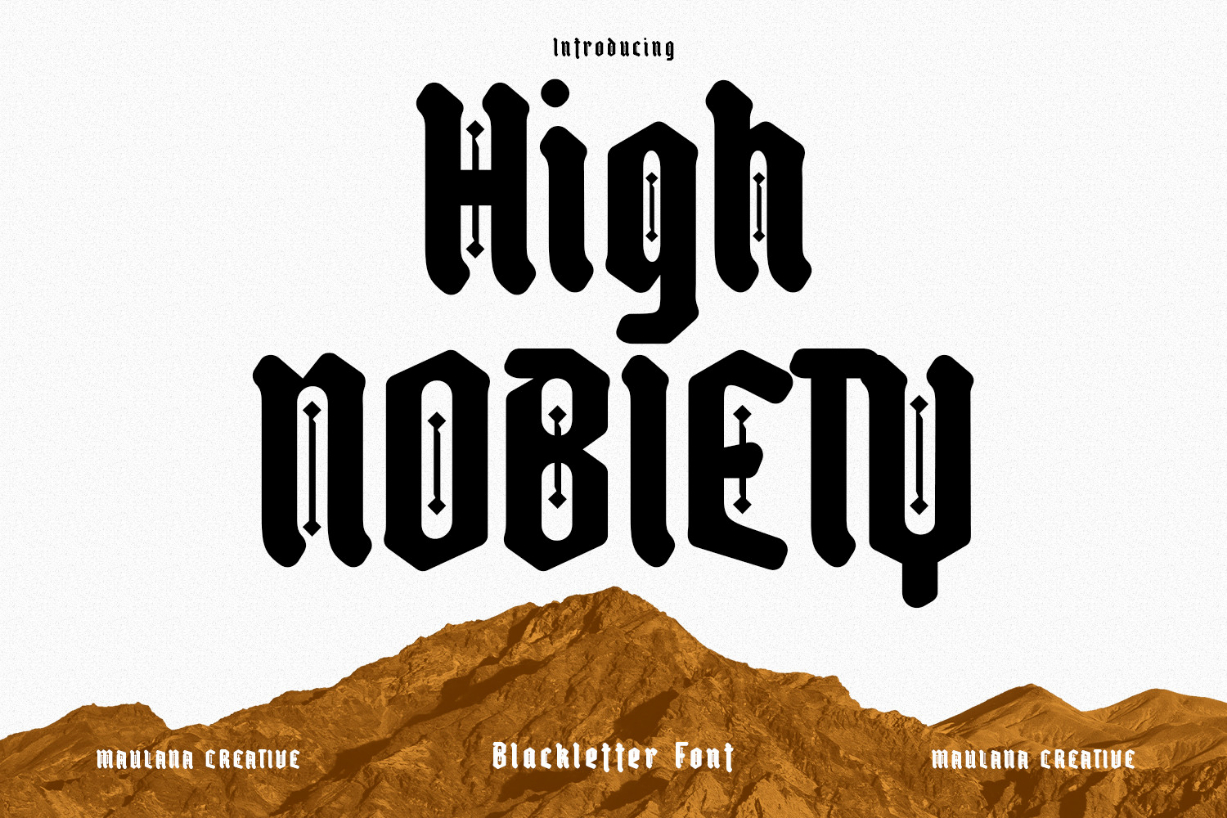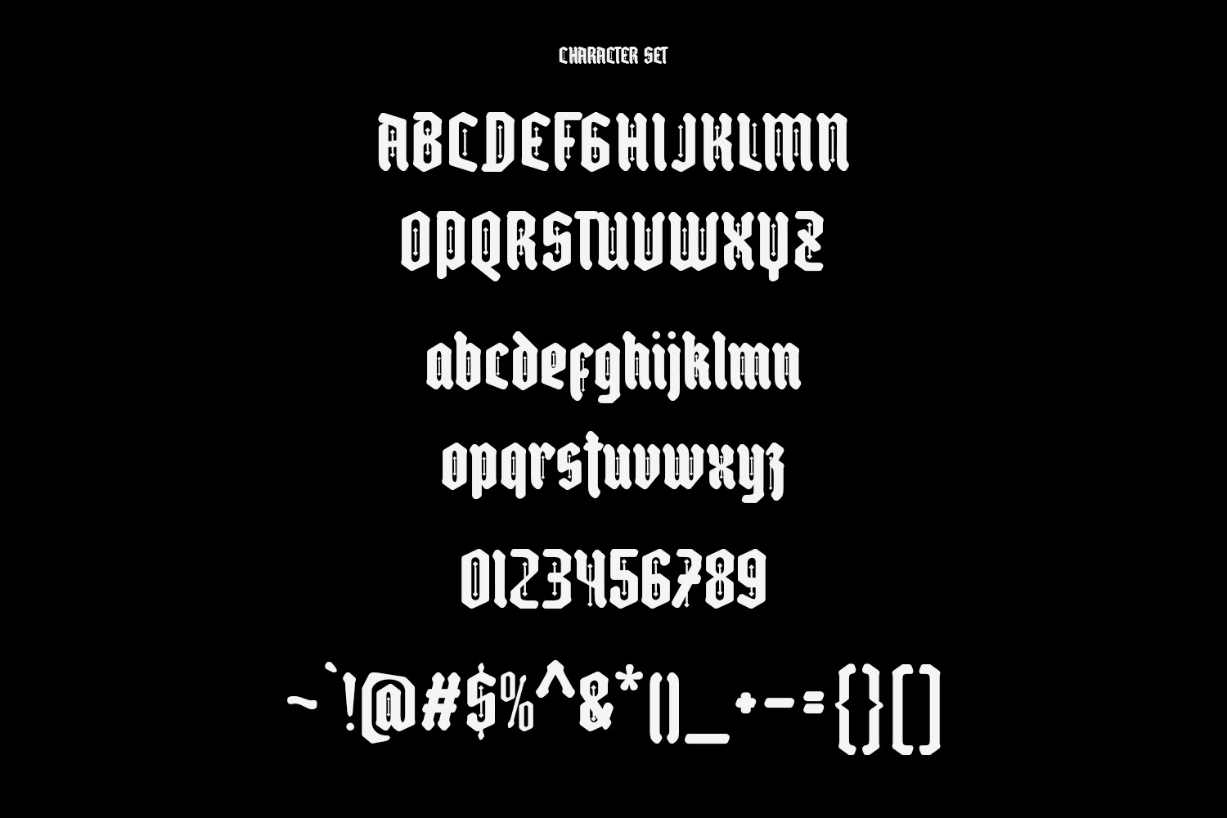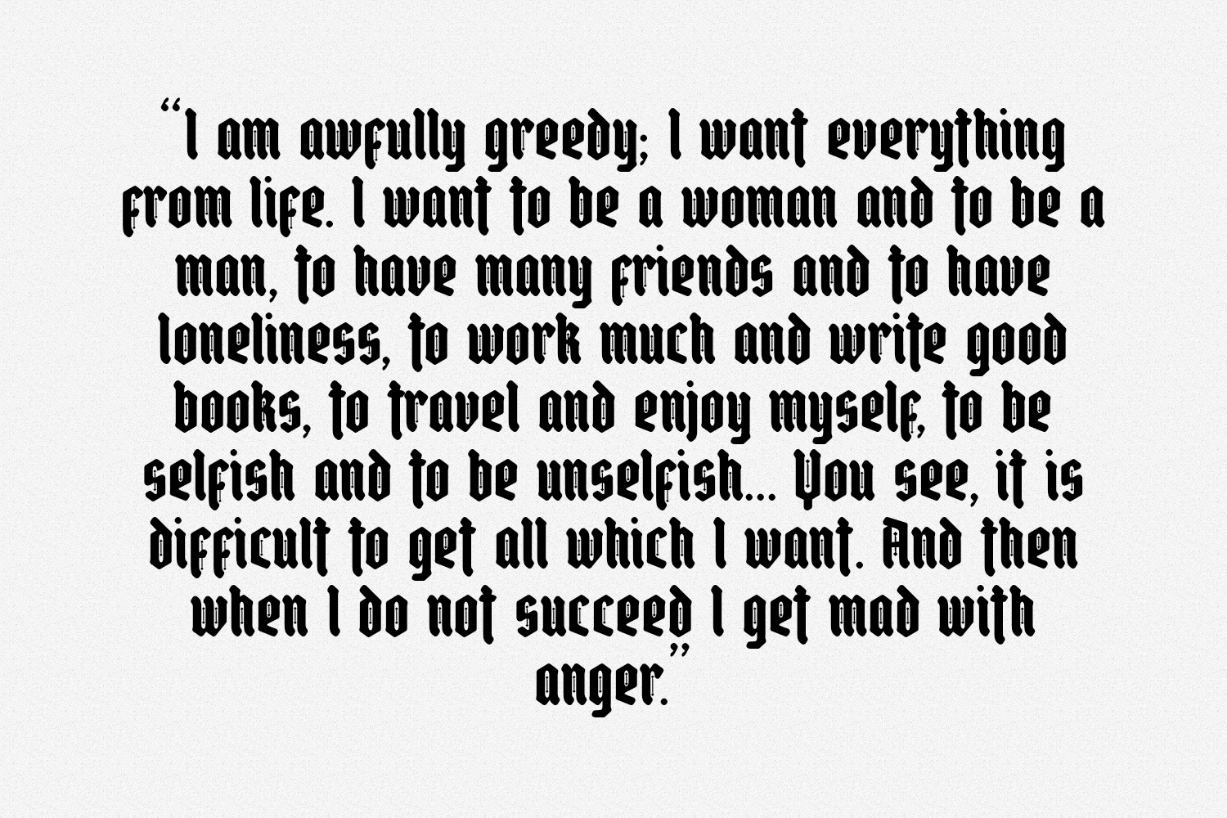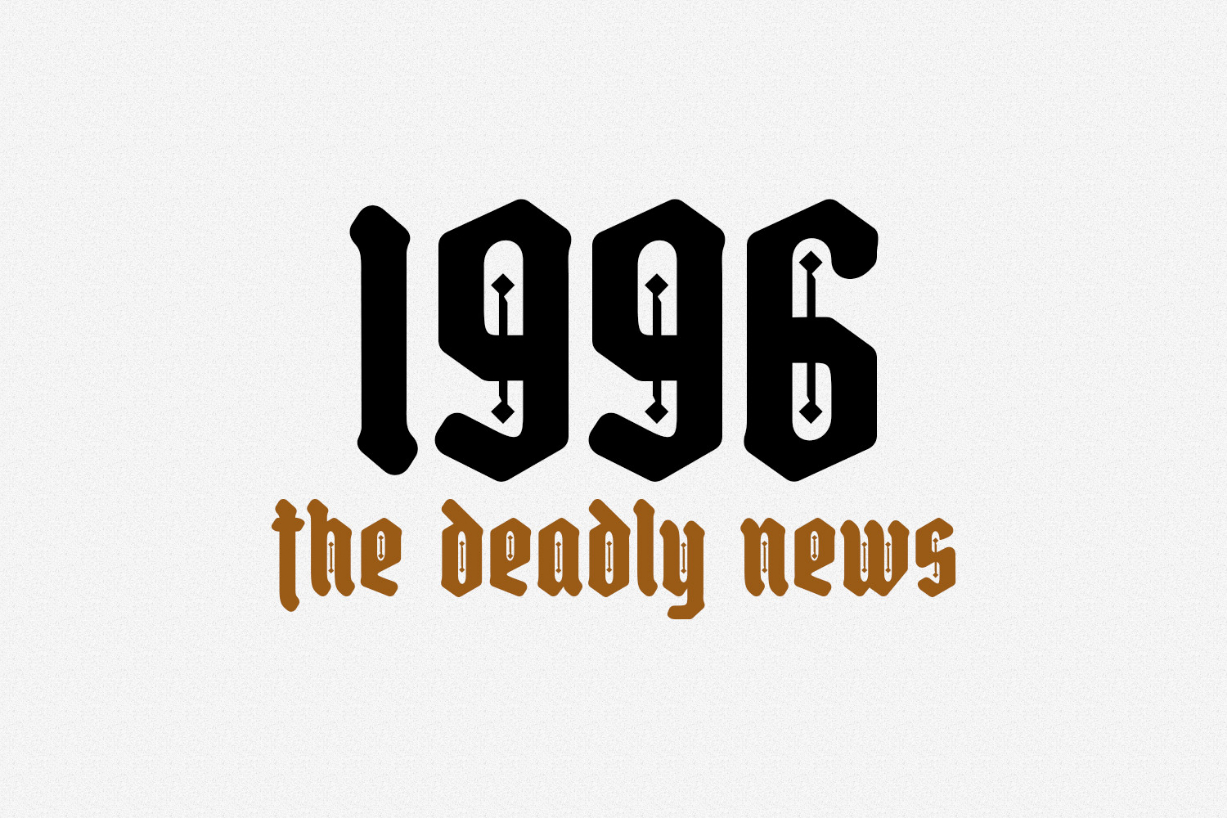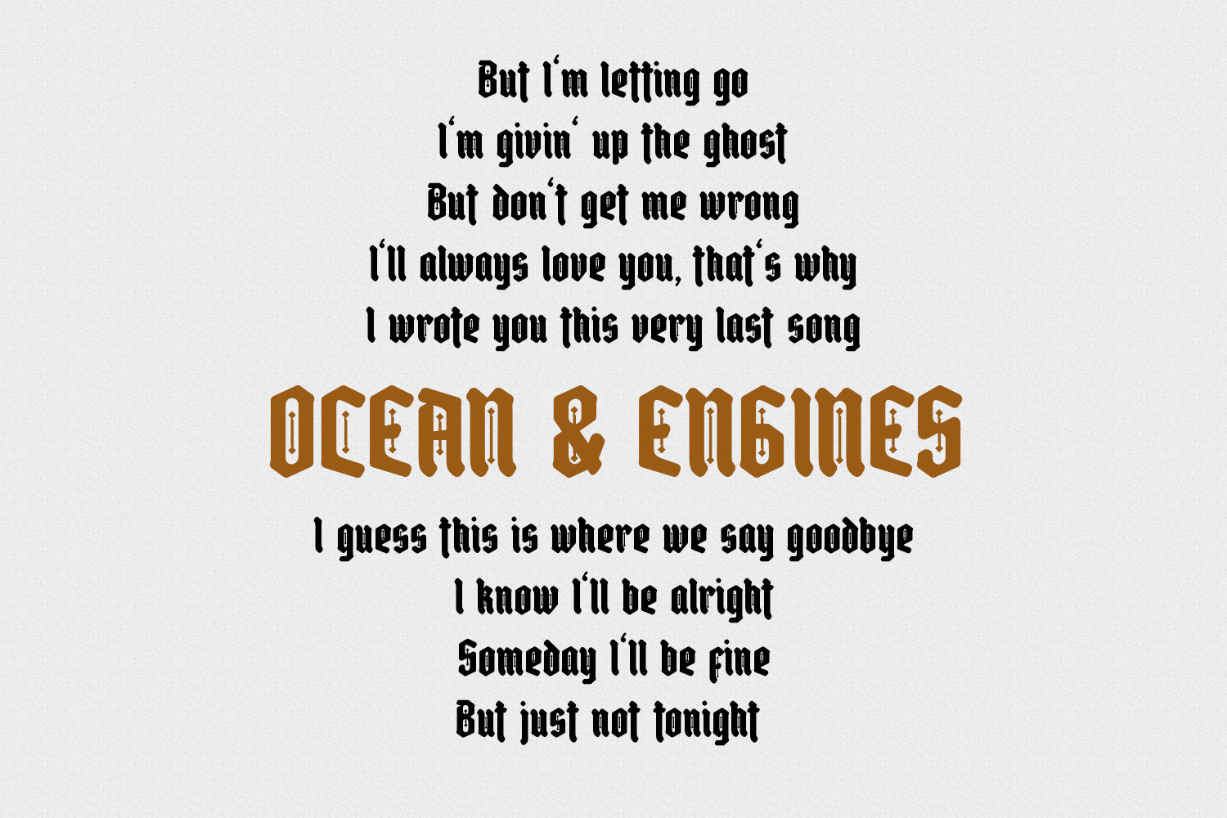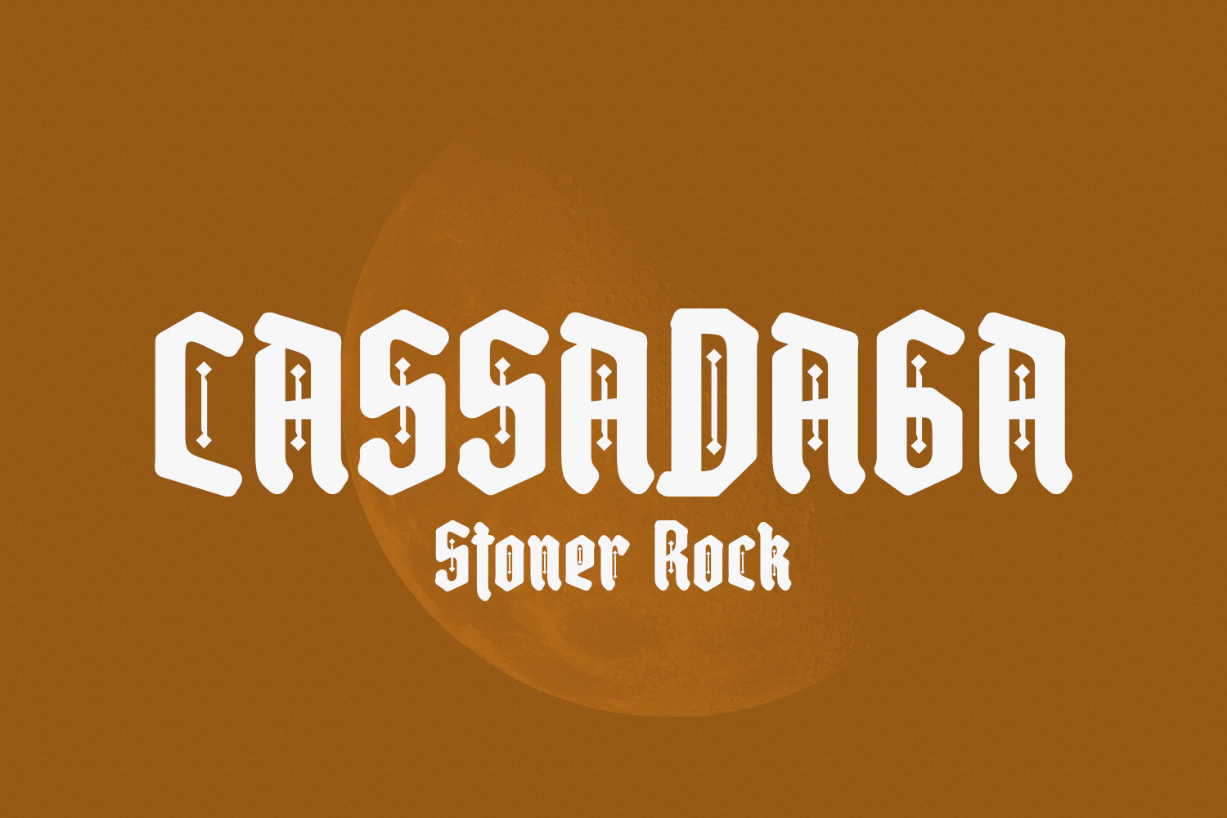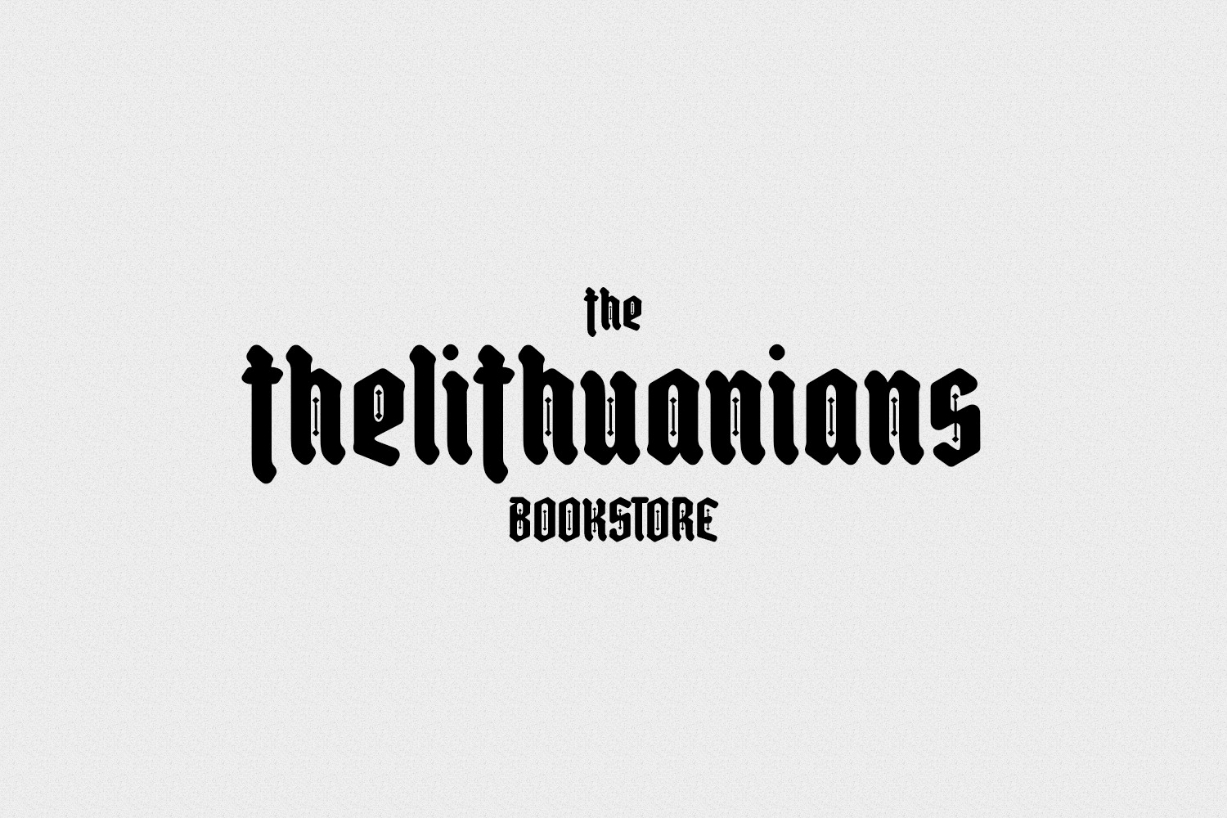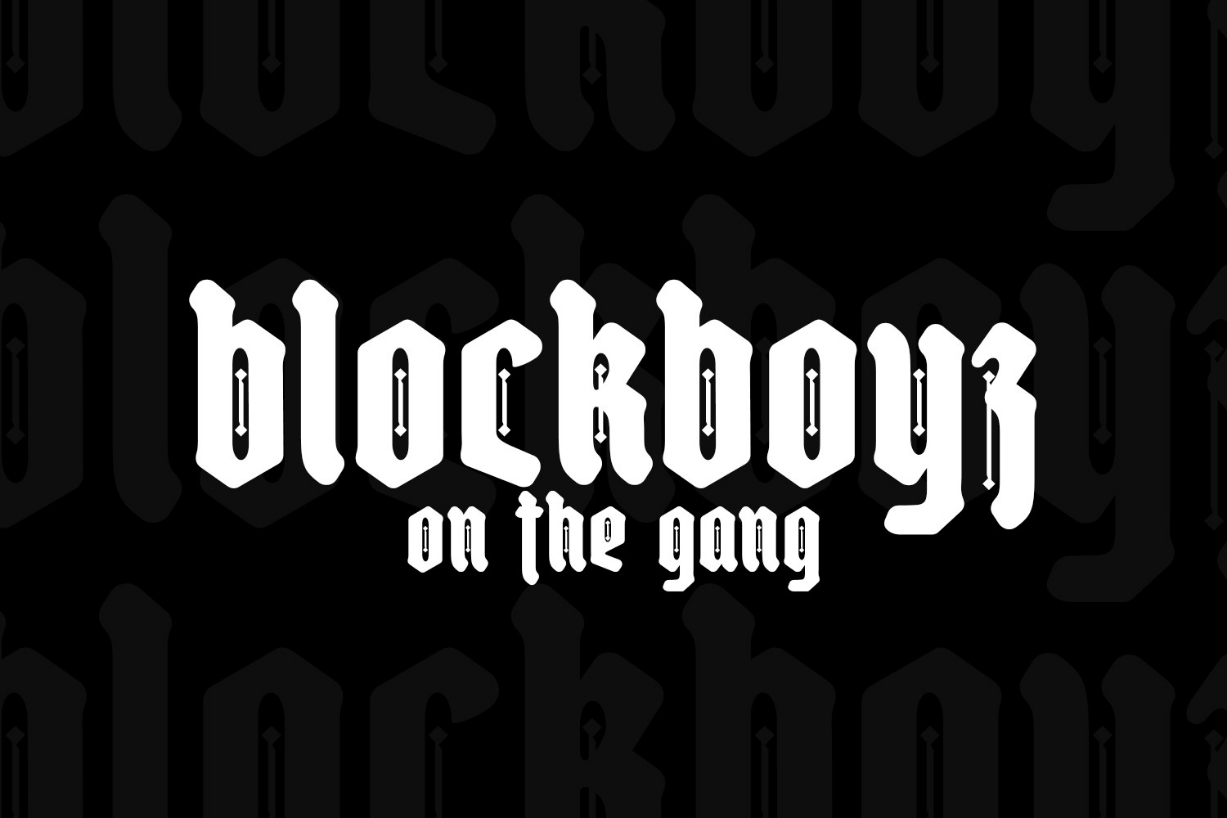
High Nobiety Font
About High Nobiety Font
High Nobiety is a modern blackletter font. Use it for product packaging, branding, or other projects that need bold and daring typography!